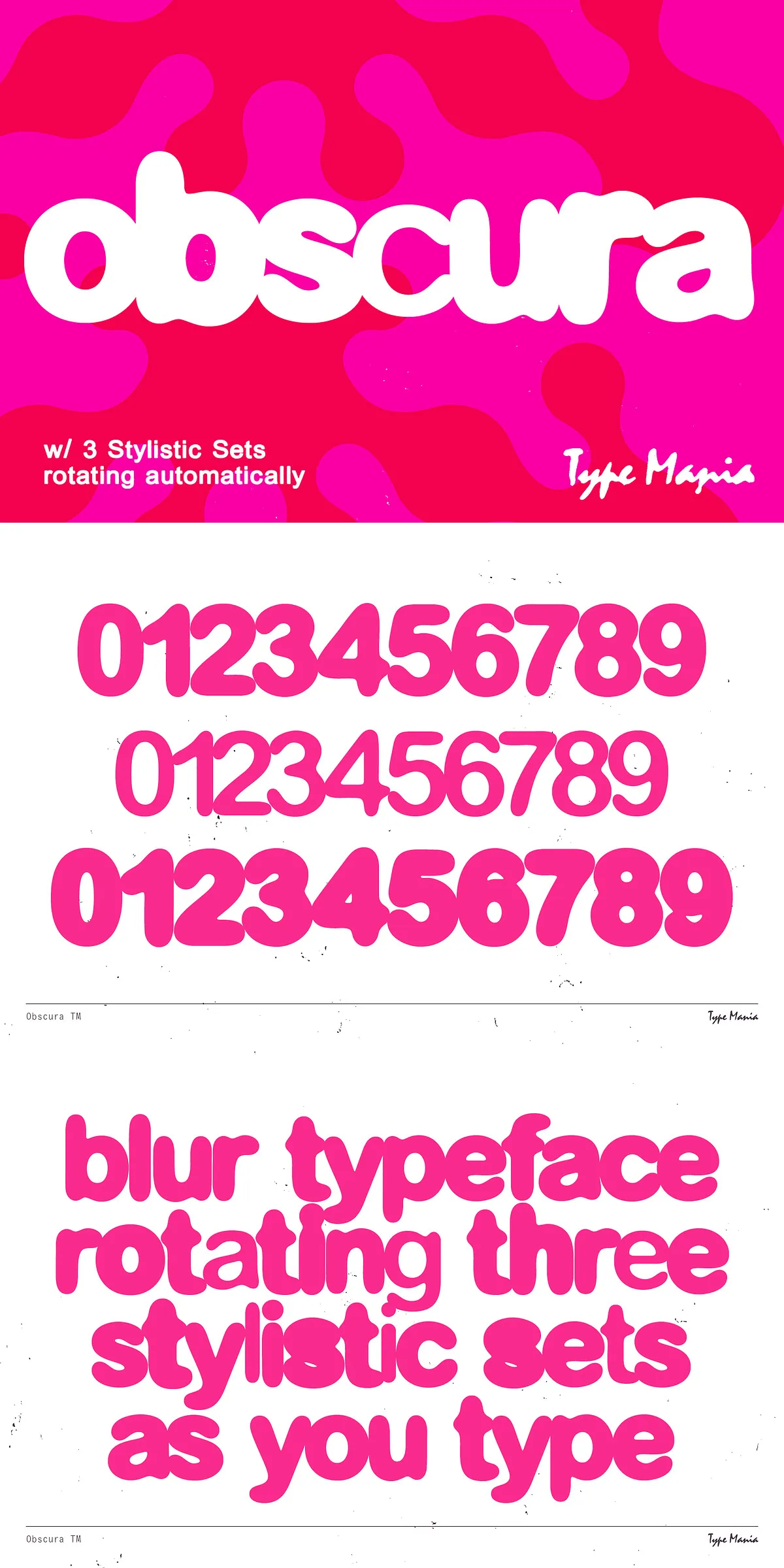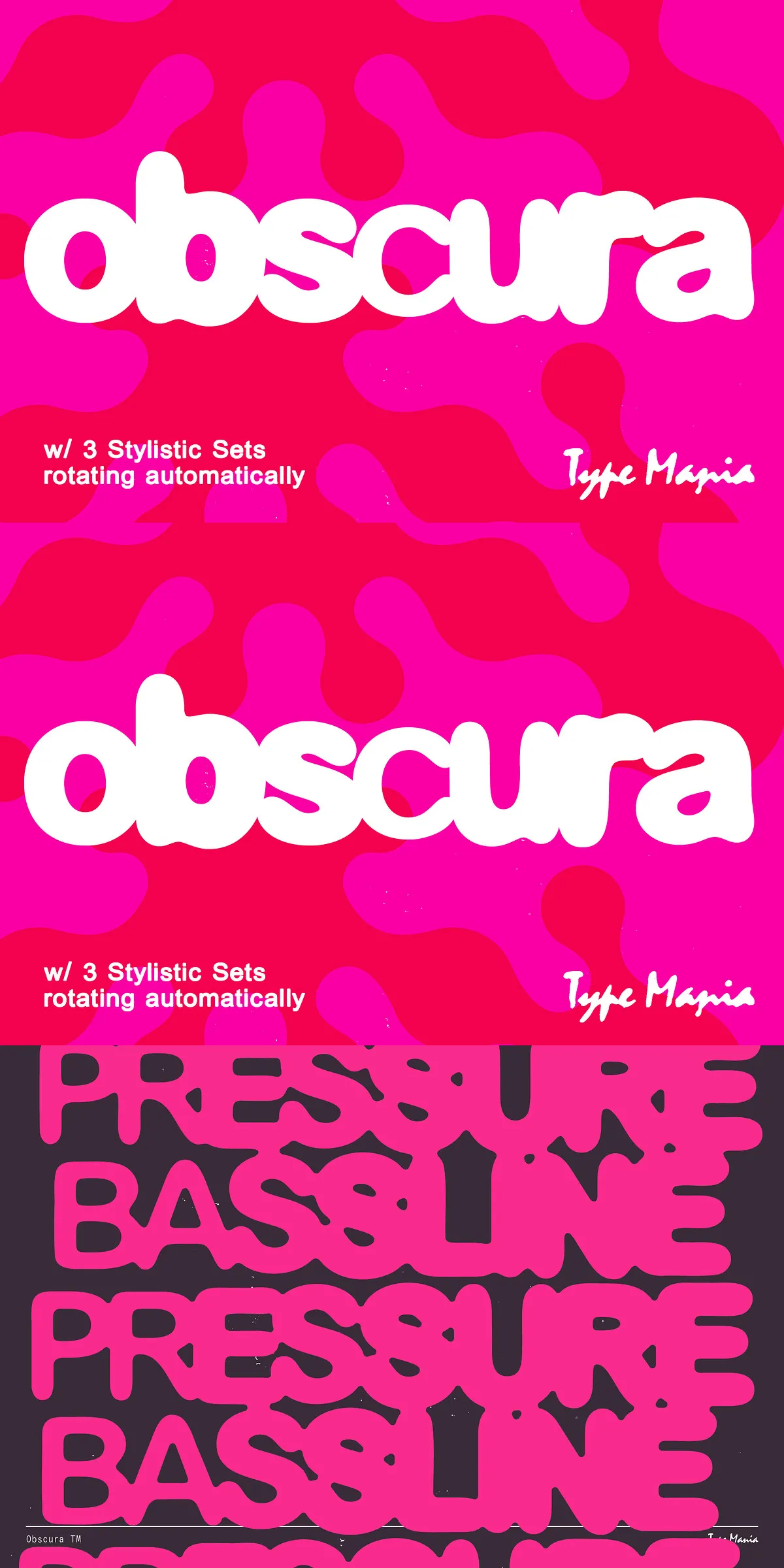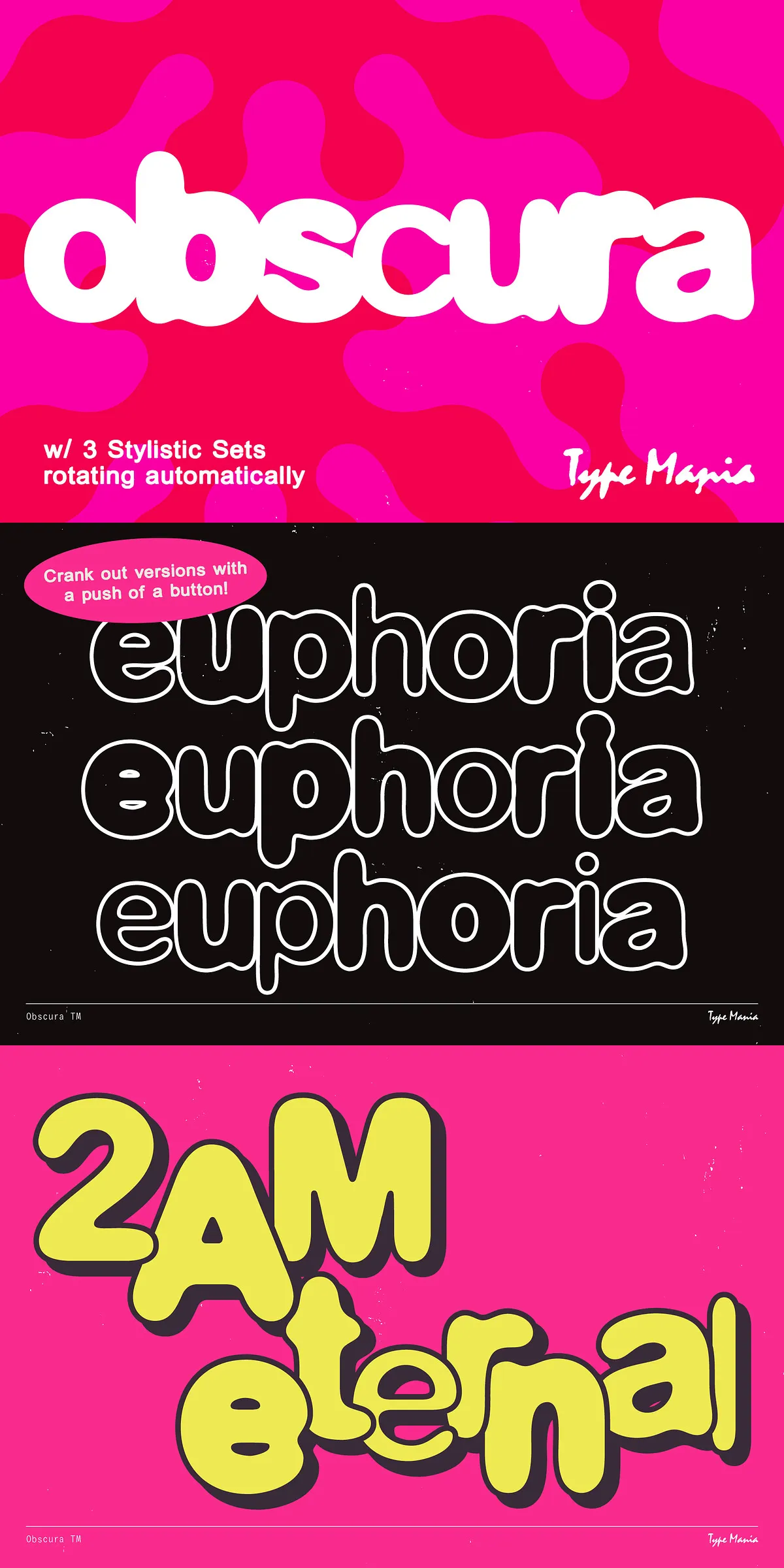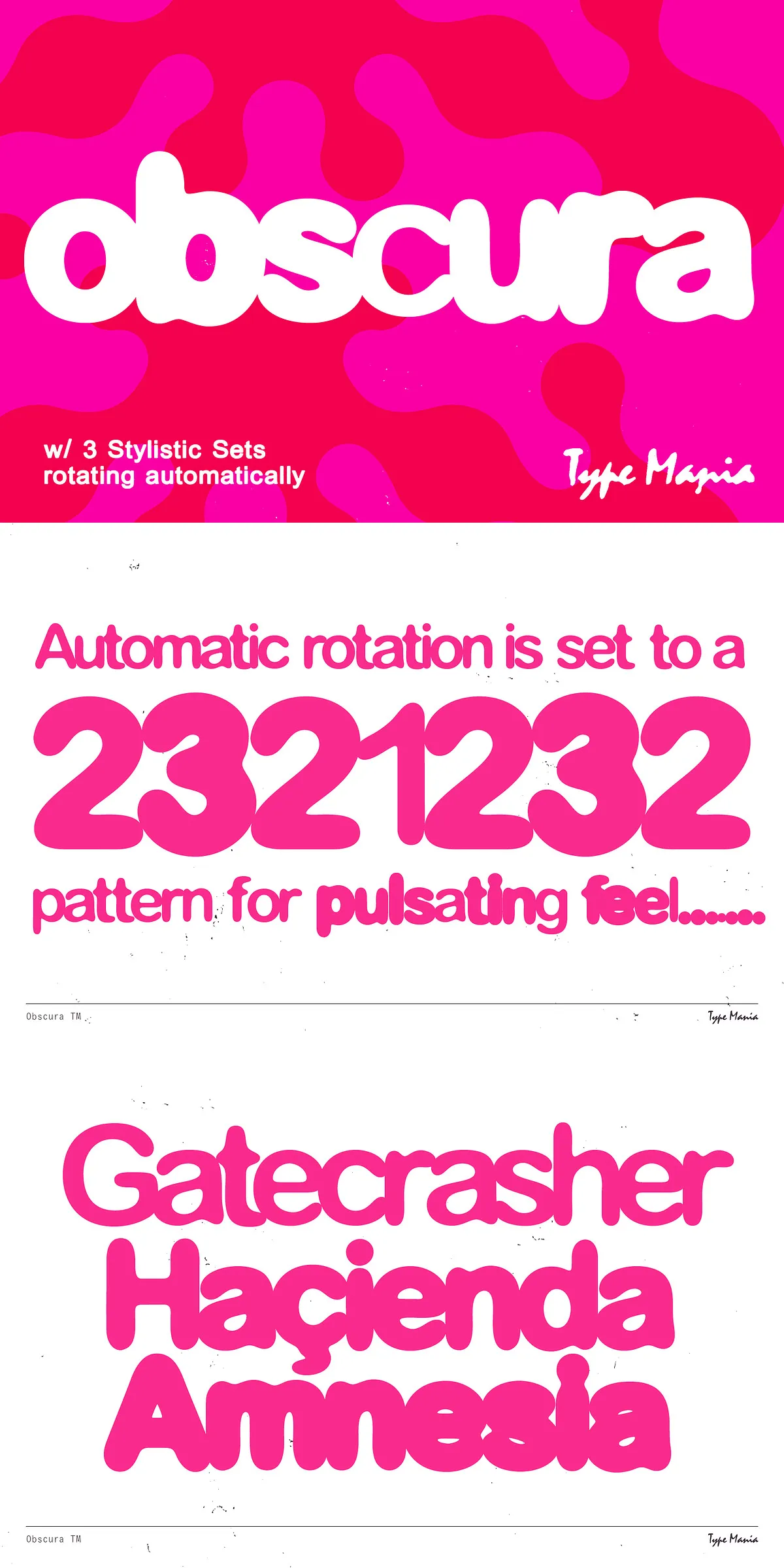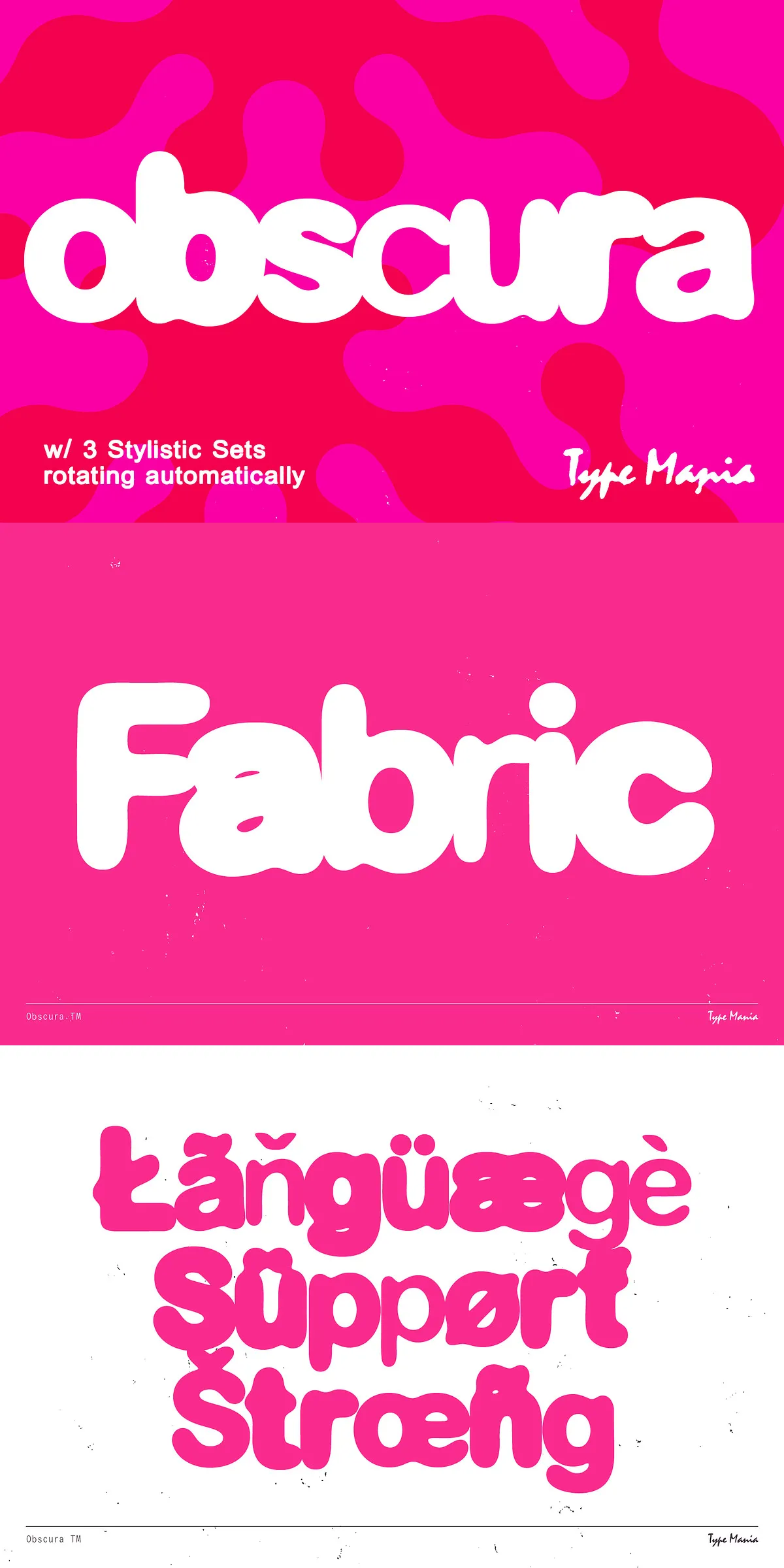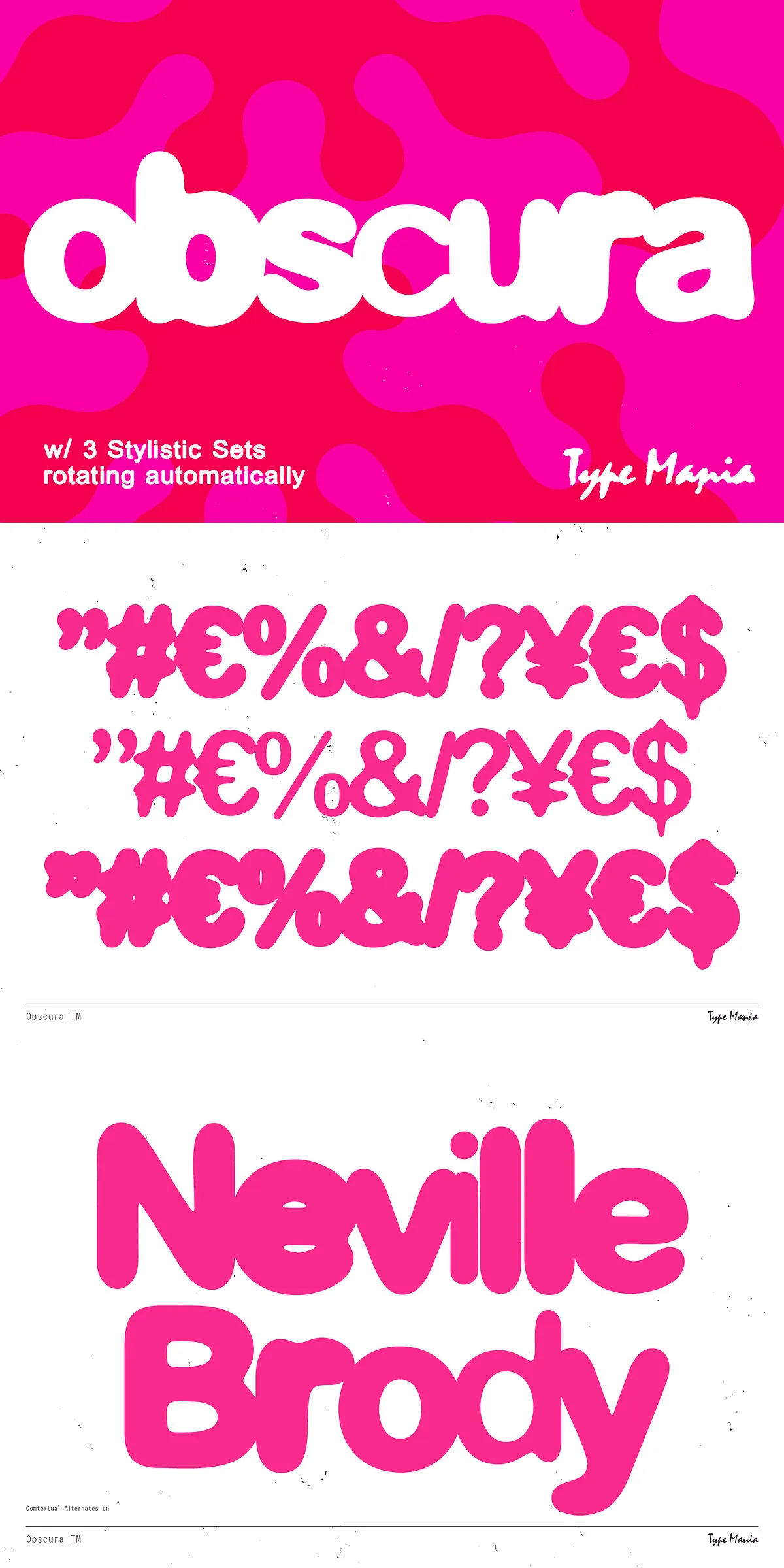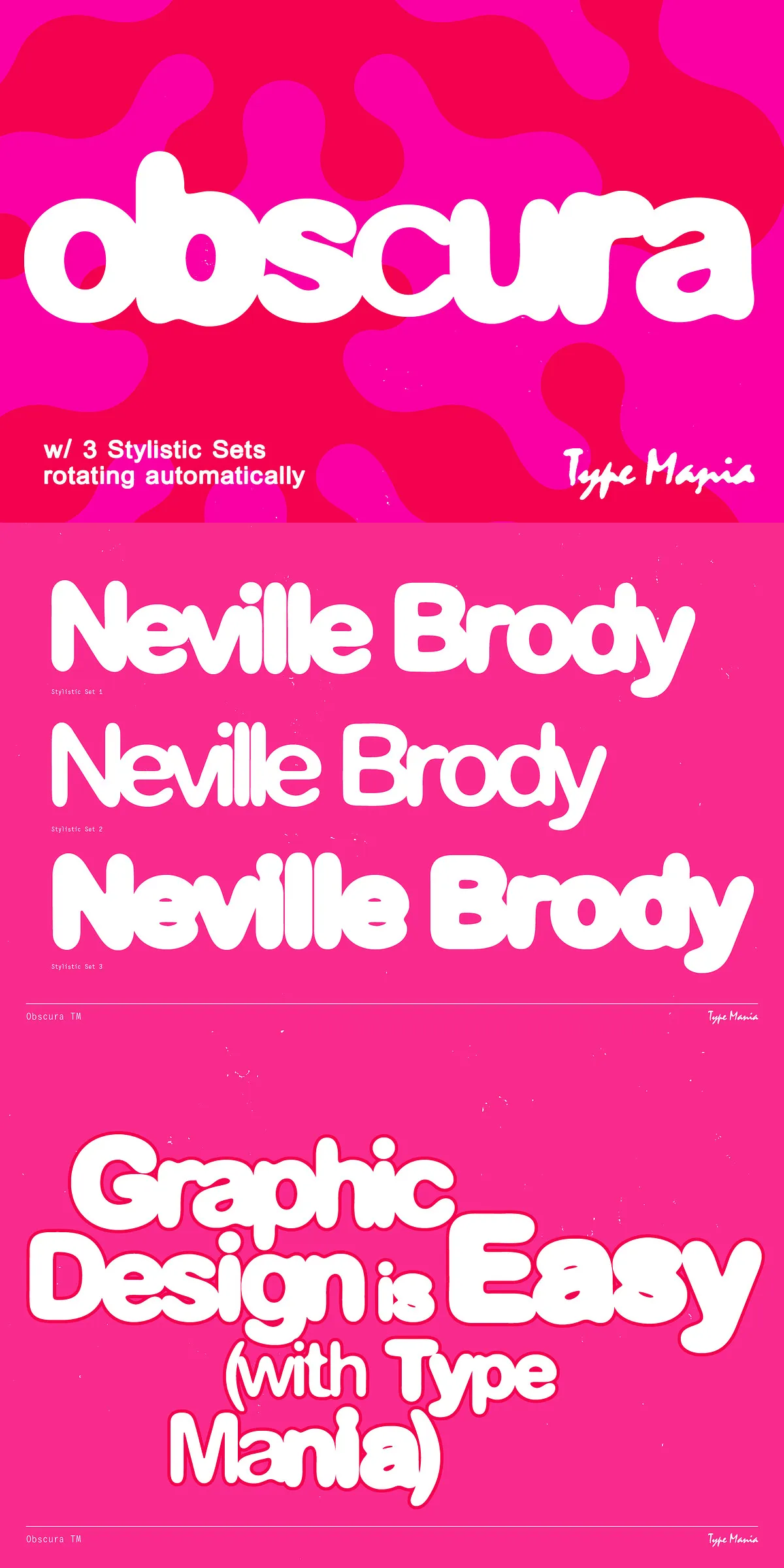
Forget static typography. Obscura TM is not a font — it’s a sensory experience. Designed for those who thrive on the edge of visual disorder, this experimental typeface takes the “blurry font” concept and turns it into a living, breathing design element. With every keystroke, it subtly shifts, blurs, and distorts — not randomly, but with intelligent flair.
Powered by advanced OpenType features, Obscura TM automatically cycles through three distinct stylistic sets as you type — all triggered by contextual alternates. The result? A living text that feels dreamlike, off-balance, and utterly captivating. Whether you’re crafting a poster for a late-night gig or designing a flyer for a neon-soaked art show, Obscura TM doesn’t just add style — it defines mood.
Why Obscura TM Breaks the Rules (and Why You Should Too)
Most “blurry” fonts are static — they look foggy but stay predictable. Obscura TM is different. It’s designed to be unpredictable on purpose. Each letterform has multiple variations that shuffle dynamically, giving each line of text a unique, organic feel. The effect isn’t chaotic — it’s curated disarray.
- Automatic Stylistic Shifting – No manual changes needed. The font adapts in real time.
- Three Fully Integrated Stylistic Sets – From soft haze to intense distortion, the range is wide and expressive.
- Contextual Alternates – Intelligent design ensures smooth transitions between variants.
- Perfect for Mood-Driven Design – Ideal for branding that leans into surrealism, nightlife, underground culture, or artistic rebellion.
Use Obscura TM Where Chaos is the Message
This font isn’t for business cards or product labels — it’s for moments when you want to disorient your audience, then capture their attention. Use it to:
- Create eye-catching event posters for concerts, raves, or alternative art exhibitions
- Design nightlife branding with a surreal, hypnotic edge
- Build experimental digital art or motion graphics that pulse and shift
- Enhance social media campaigns with visually disruptive, memorable posts
- Inject unexpected energy into album covers, zines, or avant-garde publications
Obscura TM doesn’t just say “look at me.” It makes people feel that something’s slightly off — and they can’t look away.
Engineered for Designers Who Demand Control
Built with precision, Obscura TM gives you the freedom to fine-tune the chaos. The font’s scripting allows you to:
- Enable or disable automatic alternates based on your design intent
Whether you’re designing a print layout or an interactive web banner, Obscura TM performs flawlessly. No lag. No glitches. Just smooth, hypnotic motion at the speed of keystrokes.
Claim Your Signature Visual Distortion
Don’t design with predictability. Design with intentional uncertainty. With Obscura TM, your text isn’t just readable — it’s a performance.